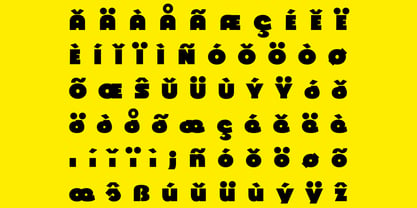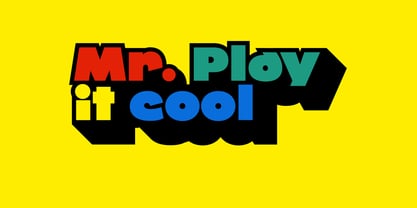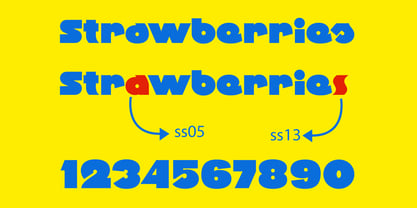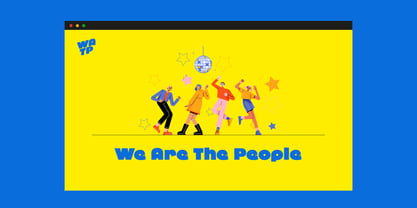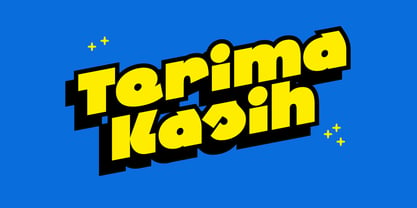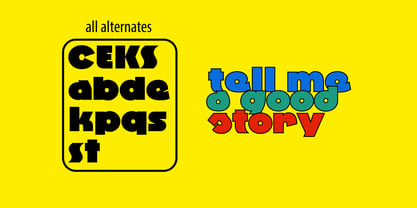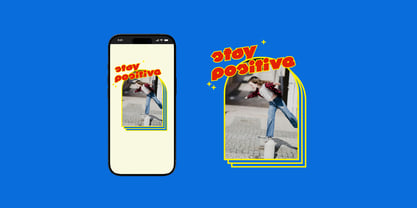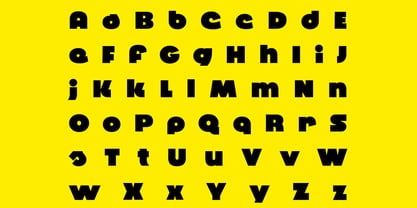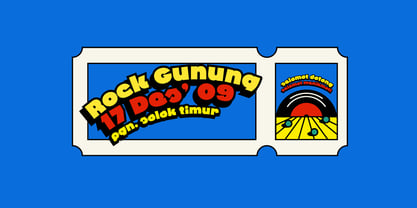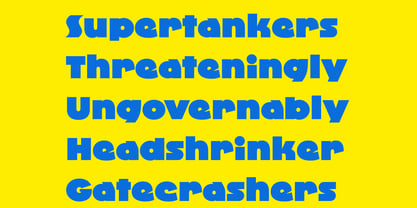
Tonia
The Tonia Font Family was designed by Ilham Prambudiharjo Raharjo and published by PB Type. Tonia contains 1 styles. More about this family
Tonia is a fun, super bold sans-serif typeface that brings energy and excitement to any design. With its thick, confident letterforms and playful personality, this font is perfect for eye-catching projects that demand attention. Whether you're working on branding, posters, packaging, social media graphics, or children’s designs, Tonia’s lively and modern style adds a sense of fun and creativity. Its bold structure ensures excellent readability, making it a fantastic choice for both digital and print applications. If you're looking for a typeface that exudes confidence and charm, Tonia is a great option to explore.